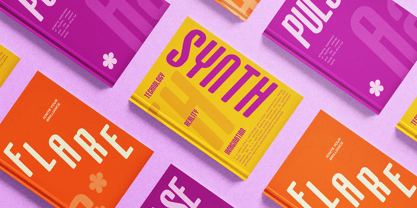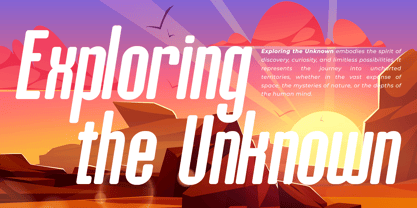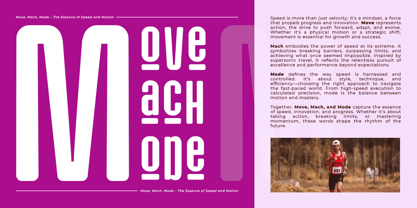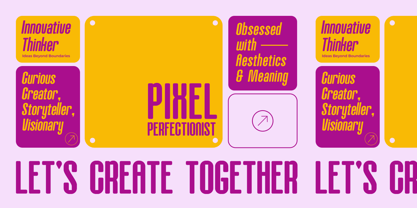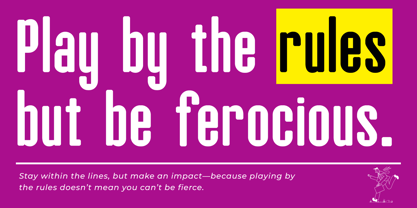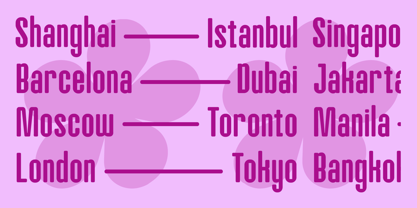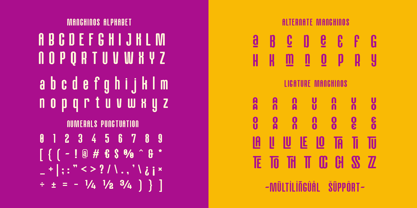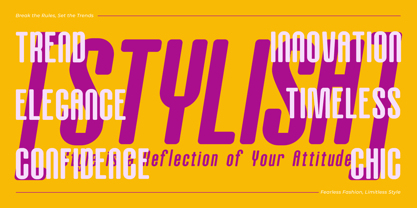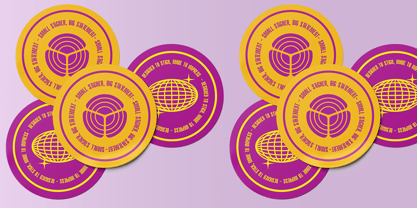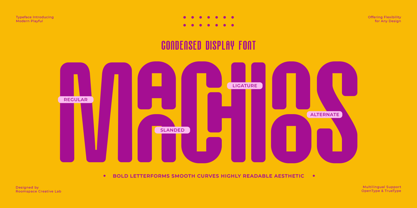
Manchinos
by Jafar07
The Manchinos Font Family was designed by Bakhrudin Ja'far and published by Jafar07. Manchinos contains 2 styles and family package options.
Manchinos is a Condensed Rounded Display Sans Serif font designed to bring a bold and modern touch to your creative projects. With its smooth curves, high readability, and unique letterforms, Manchinos is perfect for branding, headlines, posters, and more. Its bold yet elegant appearance, along with its ligatures, provides for an amazing design experience. Come with single weight, recognizable, and evocative shapes.